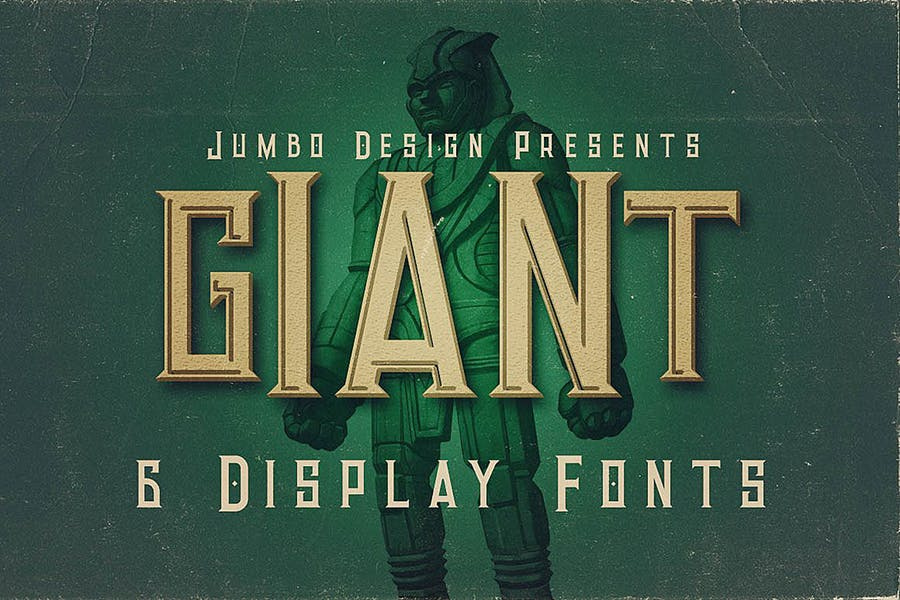
Giant - Vintage Style Font
Giant - Vintage Style Font is perfect for circus posters, old-fashioned carnival signage, vintage carnival attractions, retro advertising billboards, classic amusement park branding, nostalgic fair promotions, vintage theater marquees, antique shop displays, old-timey saloon signs, and heritage brand revivals.
Giant - Vintage Style Font creates excitement because it captures the grandeur and showmanship of classic American entertainment with its bold, theatrical letterforms and authentic period styling. The font's imposing presence and vintage carnival aesthetic instantly evoke the golden age of traveling shows and spectacular entertainment, making any project feel larger-than-life and historically authentic. Its carefully crafted vintage details and dramatic proportions create an immediate sense of nostalgia and wonder that captivates audiences seeking genuine vintage spectacle and old-world entertainment charm.
The Giant - Vintage Style Font family includes multiple weights and styles: Regular, Bold, Black, Light, Italic, Condensed, Extended, Distressed, Shadow, and Ornate versions. Each variant preserves the font's authentic vintage carnival character while offering different levels of weathering and decorative elements suitable for various period-themed applications.